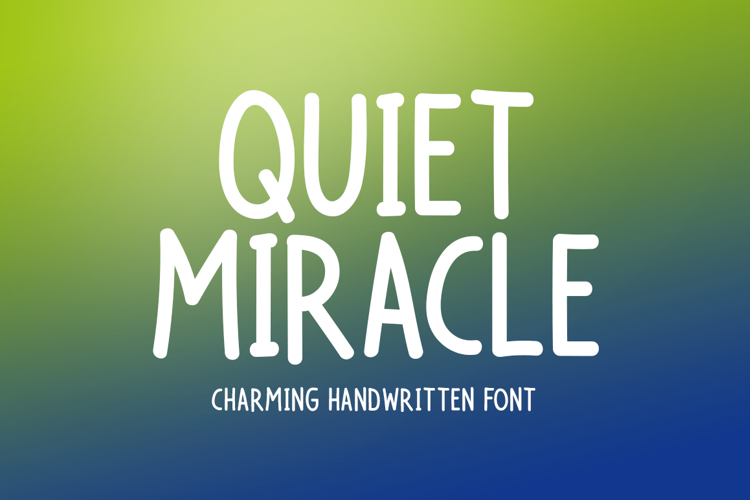
Introducing Quiet Miracle!
Quiet Miracle is a charming handwritten font with clean, natural strokes and an effortlessly elegant style. Its regular-weight design creates an authentic handwritten feel, making every project look warm, inviting, and timeless. Perfect for branding, invitations, packaging, quotes, social media, journals, logos, and creative designs that embrace graceful simplicity.